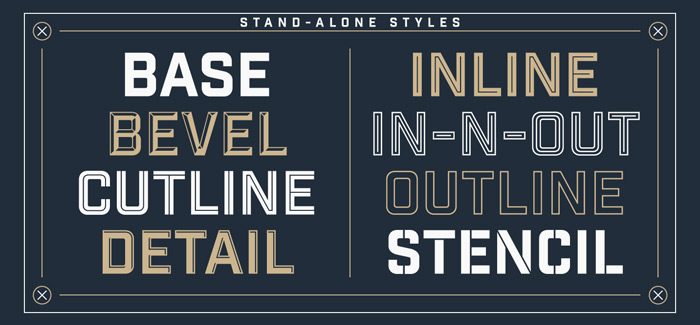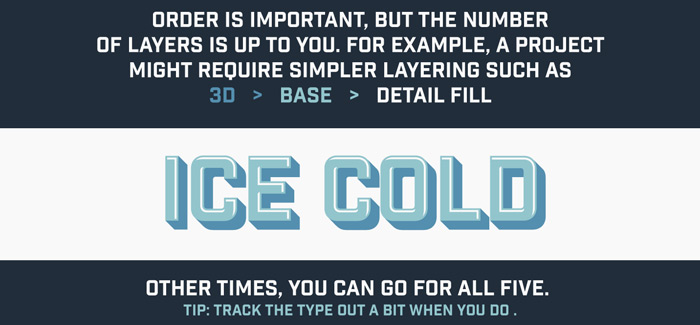
Industry Inc font
Industry Inc font by Mattox Shuler (author of the awesome Gin font, Bourbon font) is a magnificent collection of 14 original Sans Serif typefaces. Industry Inc font family is upgraded on the bold uppercase version of the vintage-industrial-futuristic Industry font family.
Open the Industry Inc font toolbox and you will find inside fourteen versatile tools: 3D, 3D Right, 3D Shadow, Base, Bevel, Bevel Fill, Cutline, Detail, Detail Fill, Inline, Inline Stroke, In-N-Out, Outline, and Stencil. Some of them are stand-alone fonts, the rest are intended to form a comprehensive layered type system. Use them separately or in countless combinations to achieve amazing 3D type effects.
Note: The Stencil and Cutline styles are not meant to be layered.